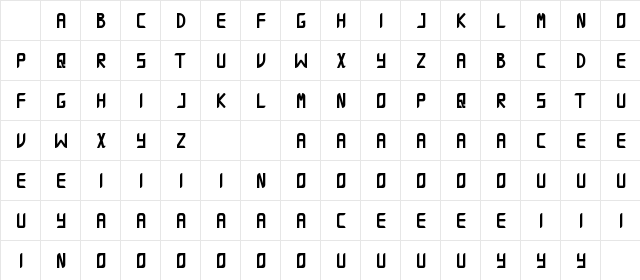
Complete Agrandize Demo Sans Regular glyph index. Displaying only characters natively supported by Agrandize Demo Sans Regular font.
Agrandize Demo Sans is a composed and adaptable typeface that performs quietly and consistently across a wide range of design contexts.